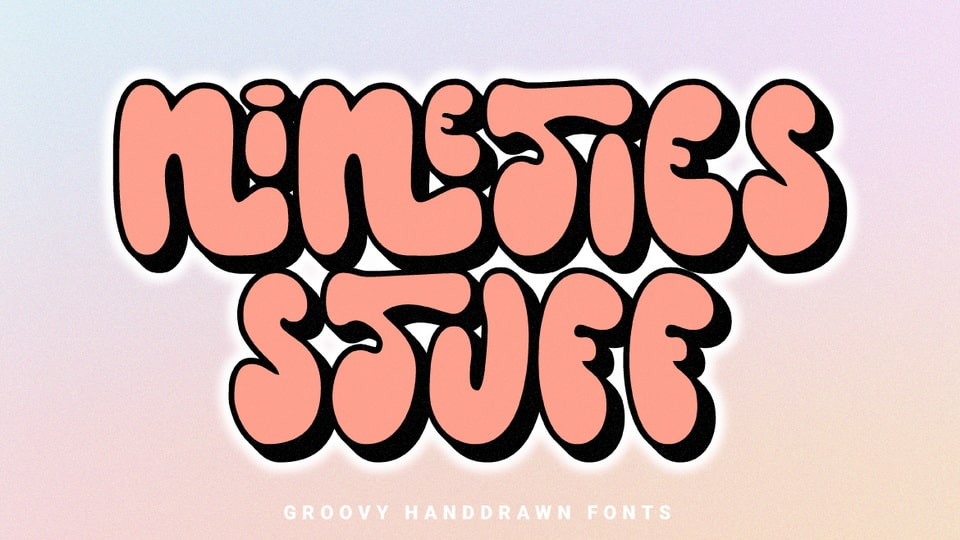
Download Nineties Stuff font, a groovy typeface hand drawn with unique and fun characteristics. Nineties Stuff is suitable for poster design, merchandise, creative posts, logos or branding.
Designer: Prioritype Co